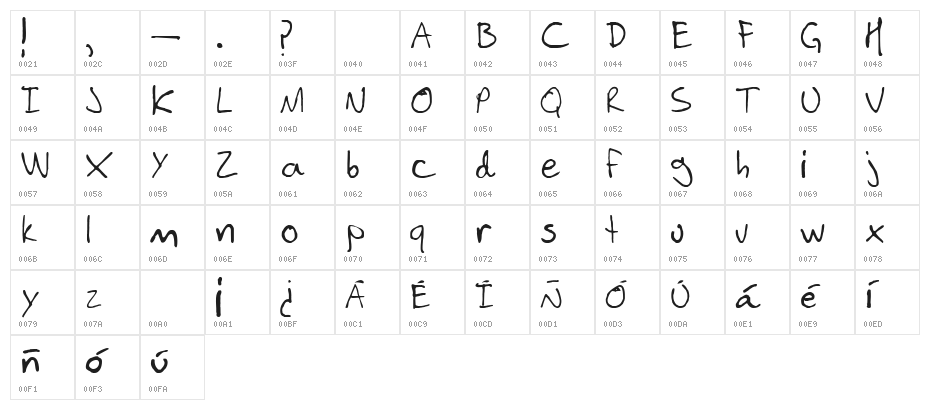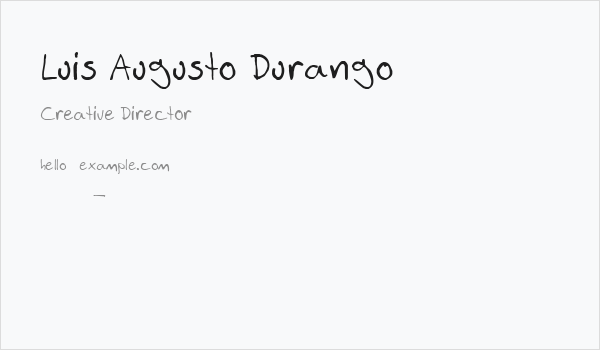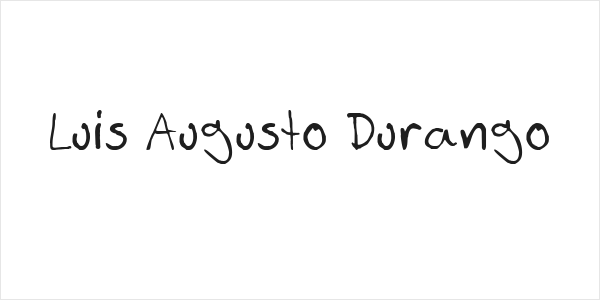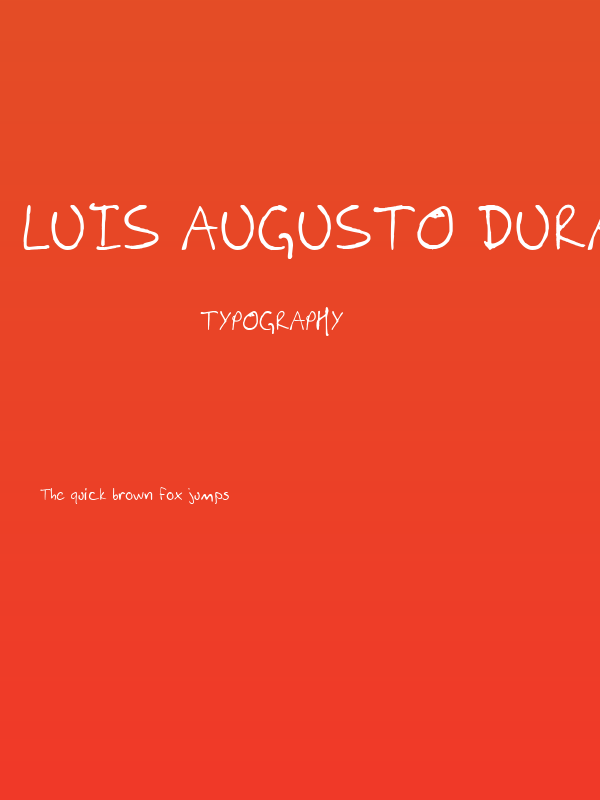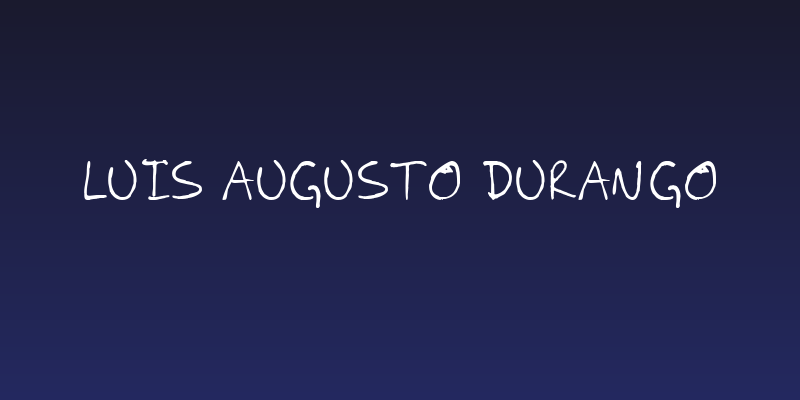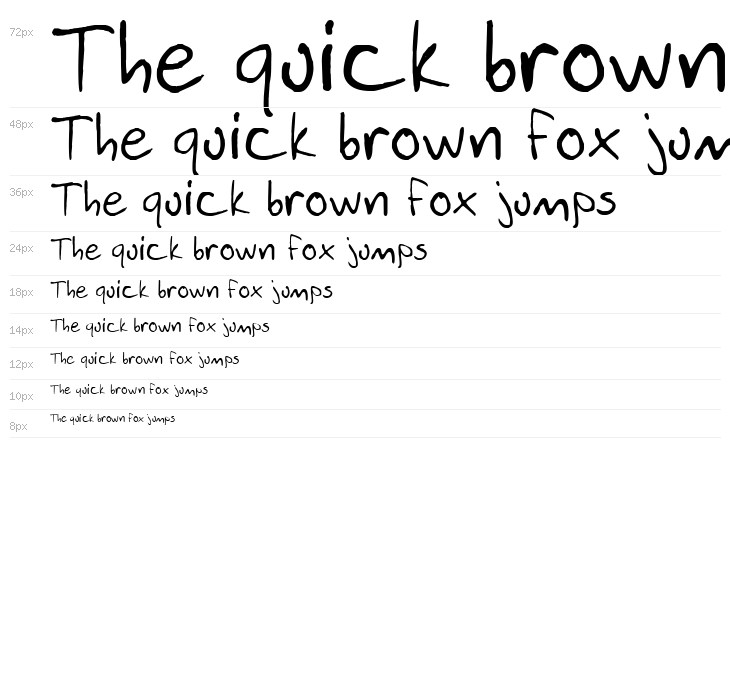
Luis Augusto Durango Font
Luis Augusto Durango Description
This font features a playful and casual handwritten style, characterized by its irregular strokes and slightly uneven baseline. The letters have a personal touch, resembling natural handwriting with a relaxed and informal appearance. The uppercase and lowercase letters maintain a consistent style, with smooth curves and a friendly demeanor. The numerals and special characters follow the same casual aesthetic, making the font versatile for various creative projects. Its unique charm lies in its ability to convey a sense of warmth and approachability, ideal for projects that require a personal or informal tone.
| Use Case | Logos, Headlines, Informal text |
| Proposed Projects | Greeting cards, personal invitations, casual branding, children's books, and social media graphics. |